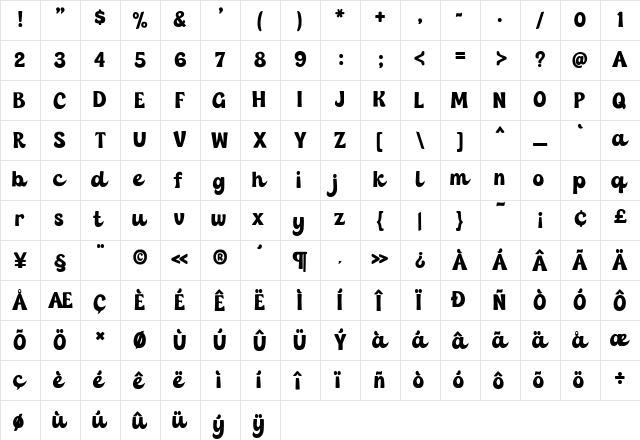
Complete The Rolling Stone Regular glyph index. Displaying only characters natively supported by The Rolling Stone Regular font.
The Rolling Stone is a composed and adaptable typeface that performs quietly and consistently across a wide range of design contexts.